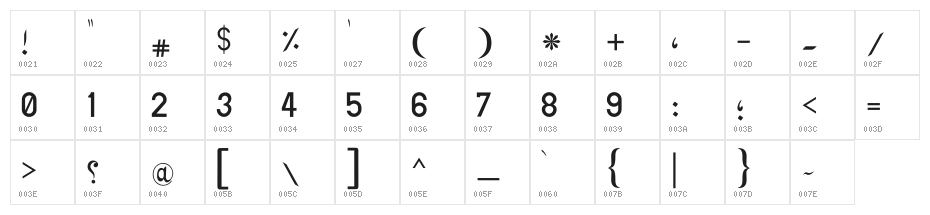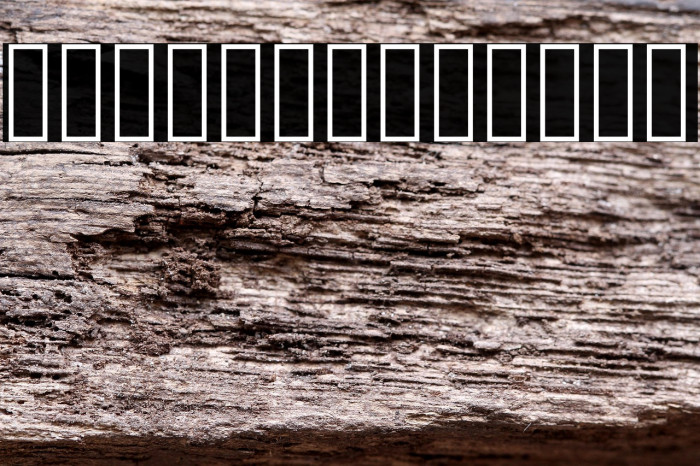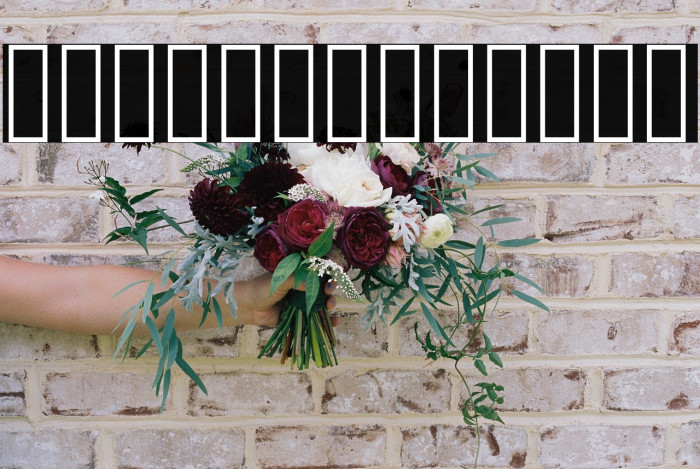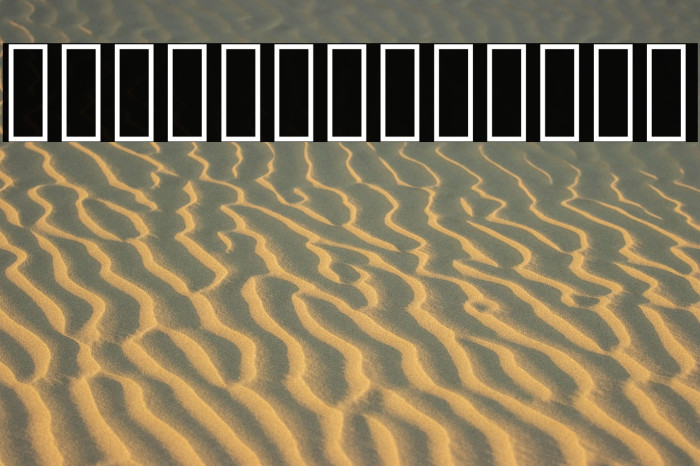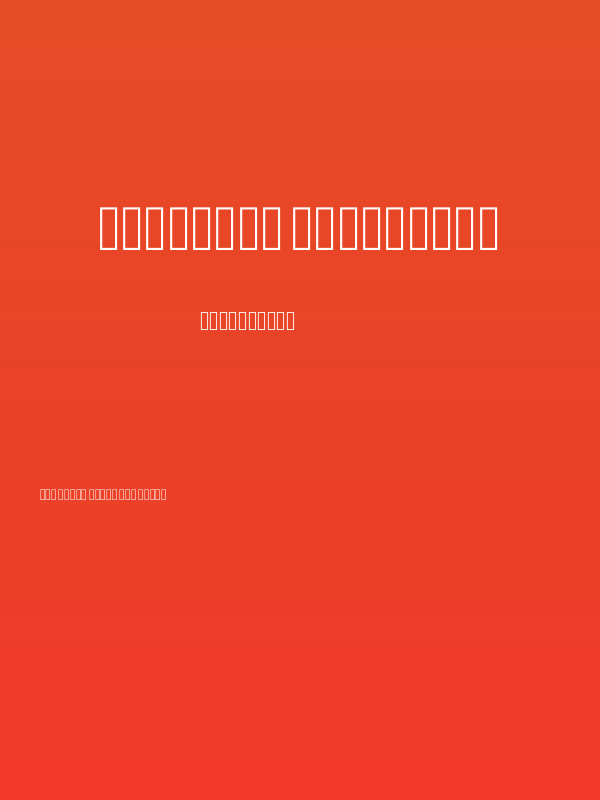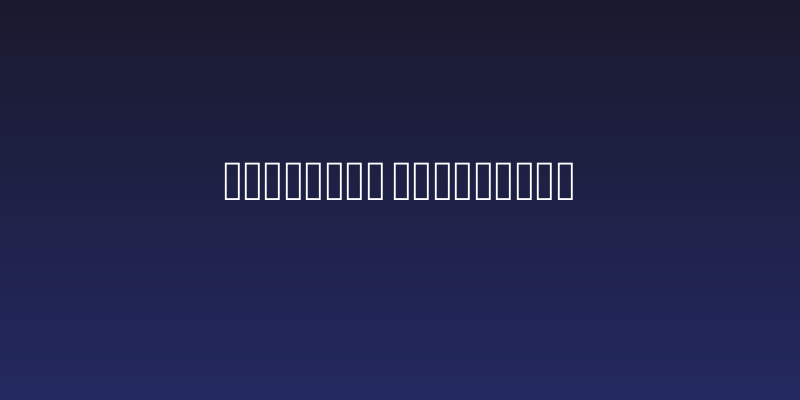
Hussaini Nastaleeq Font
Hussaini Nastaleeq Description
This font is a modern, sans-serif typeface characterized by its clean and straightforward design. The letters are evenly spaced with a consistent stroke width, providing a balanced and harmonious appearance. The numerals are clear and distinct, making them easily readable. Special characters are well-defined and maintain the font's overall aesthetic. The simplicity and clarity of this typeface make it versatile for various design applications.
| Proposed Projects | Ideal for digital interfaces, corporate branding, signage, and editorial design due to its clarity and modern appeal. |